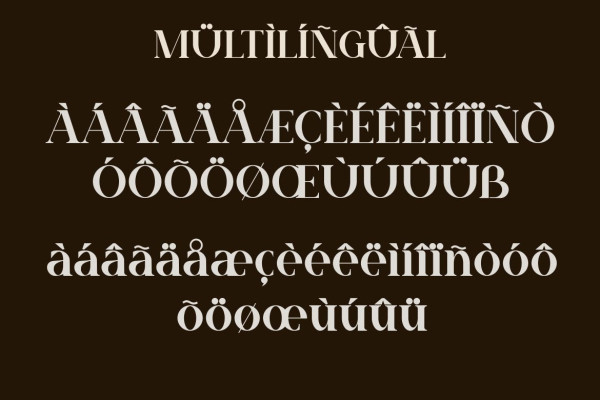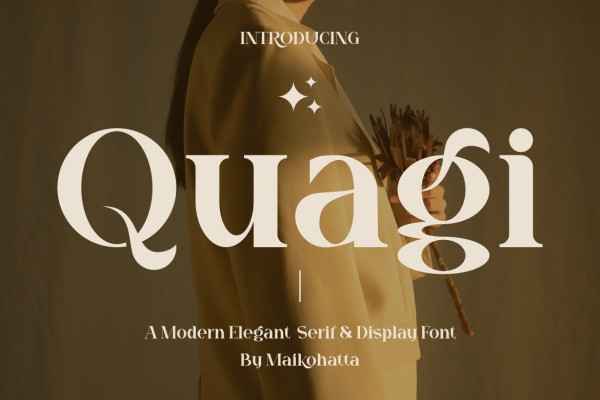
Quagi Font
Quagi Font – Modern Font is a bold and authentic display font. The font is suitable for any branding project like logo, template design, esport, and many more. outstanding in a wide range of contexts.